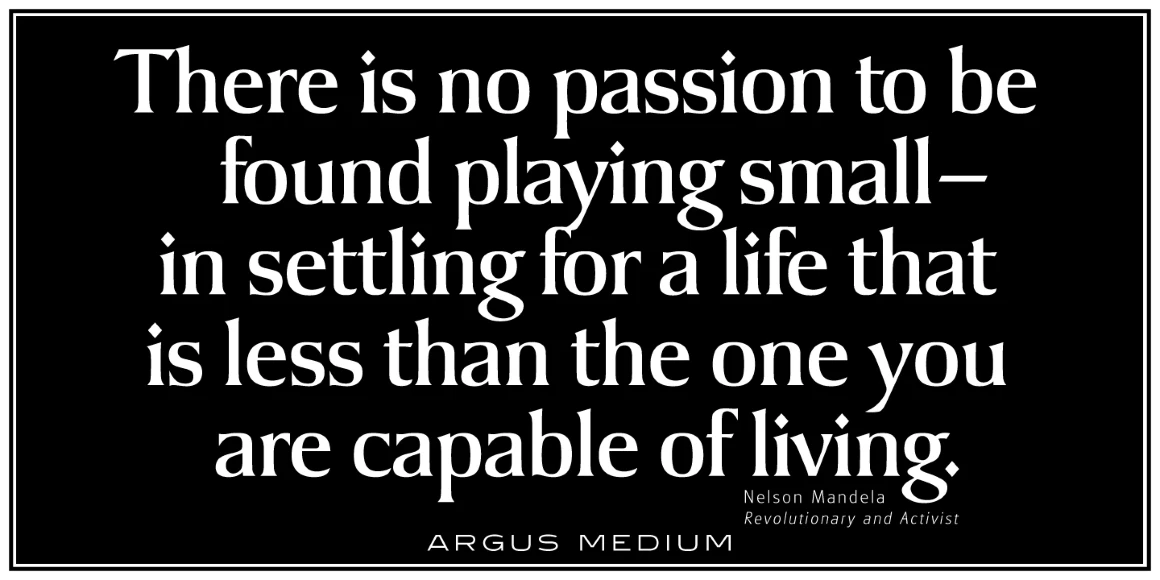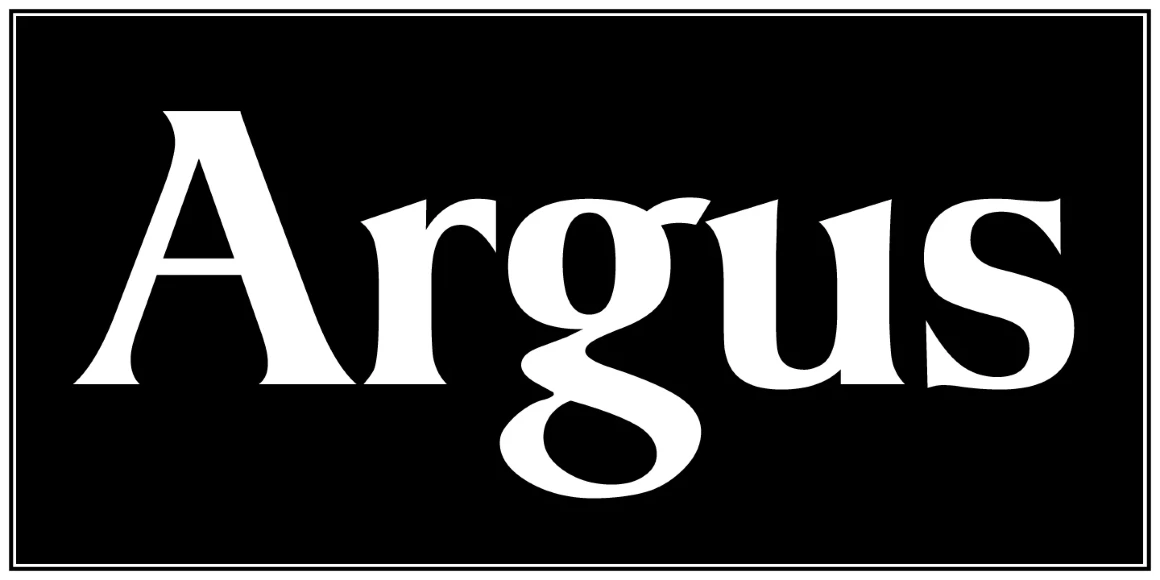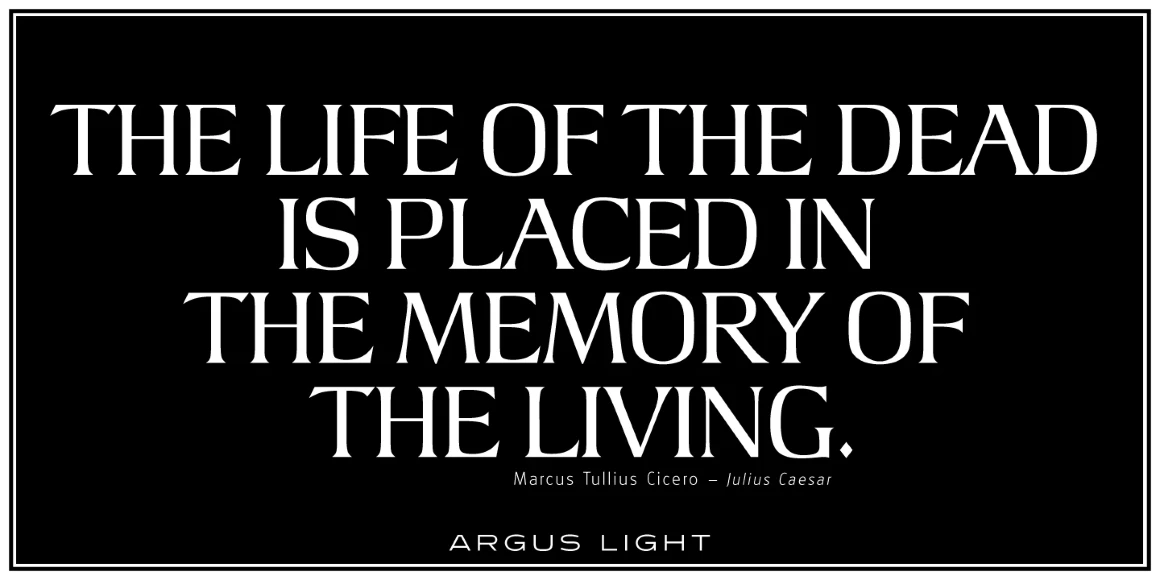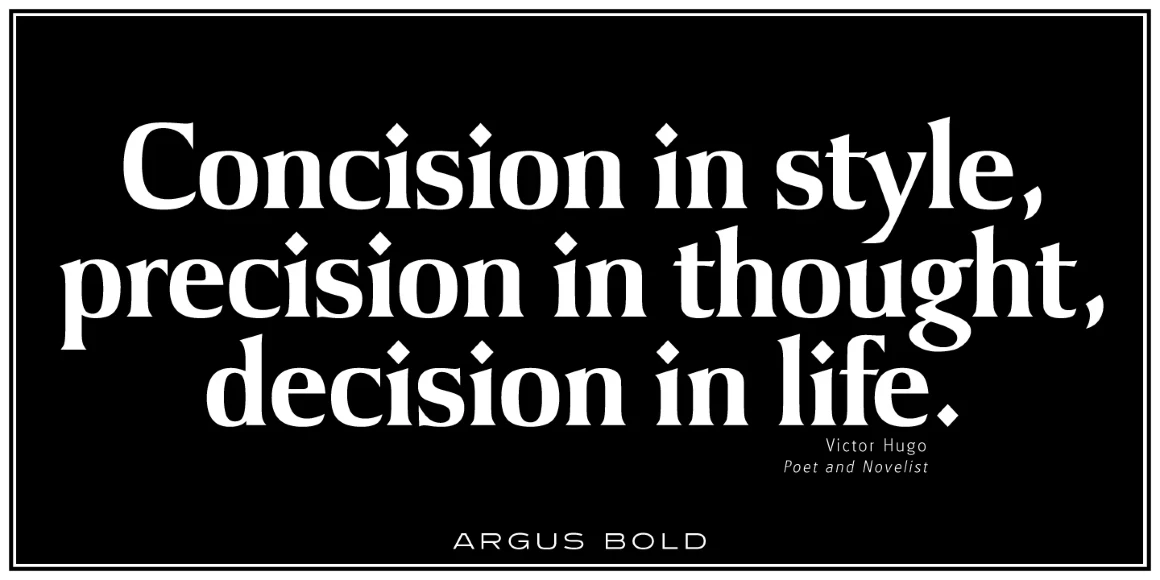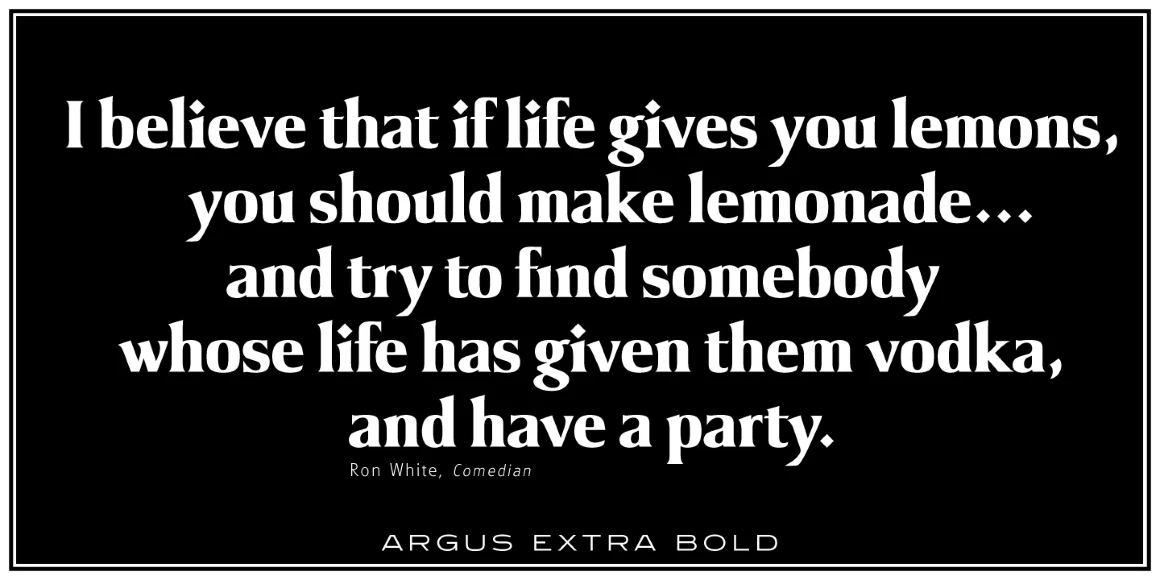
Argus
Argus Light
Argus Medium
Argus Bold
Argus Extra Bold
Argus is a flared serif font family. Its analog form was designed by Les Usherwood (Typsettra) in the 1980’s, and Paul Hickson (P&P Hickson) and Steve Jackaman (ITF) designed the digital version exclusively for the Red Rooster Collection in 1992. Argus is an expressive, graceful typeface that was inspired by Baroque typography. Its diamond-shaped punctuation shares similarities with other glyphic typefaces, such as Arthur Baker’s ‘Baker Signet.’ The font family gives a beautiful gravitas to any project, whether it be packaging, motion picture, or magazines.